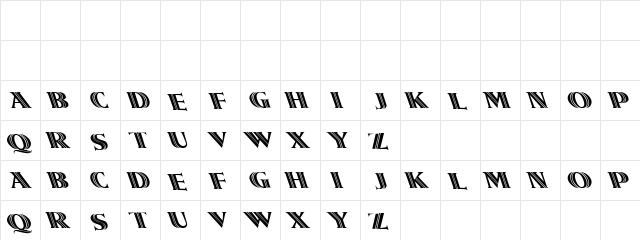
Metroliner Lefty Regular
Design Context for Metroliner Lefty Typeface
Metroliner Lefty is a composed and adaptable typeface that performs quietly and consistently across a wide range of design contexts.